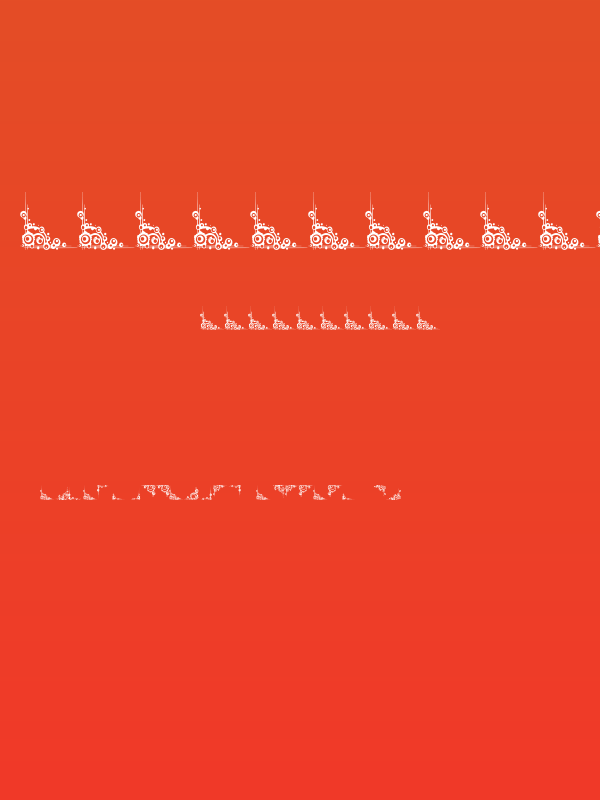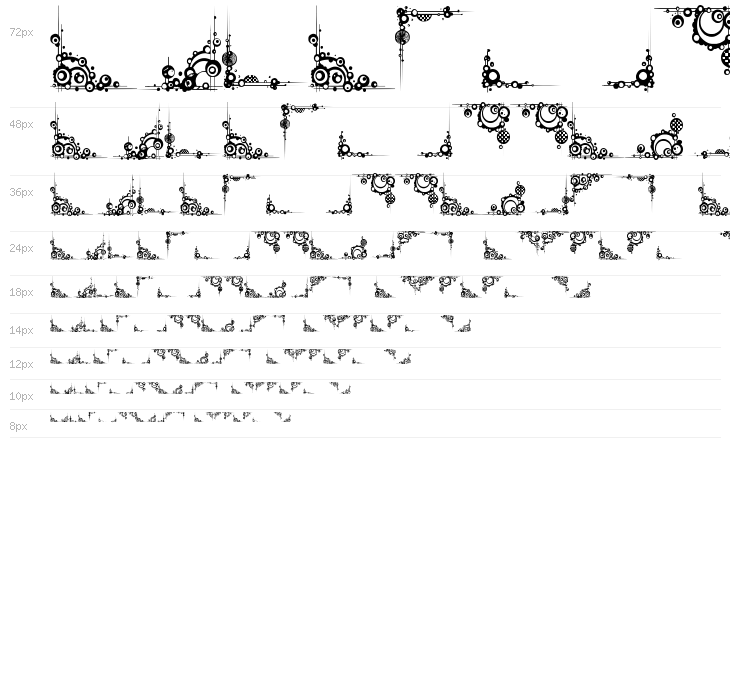
Vintage Decorative Corners 25 Font
Vintage Decorative Corners 25 Description
Highly ornate, intricate decorative corner elements featuring swirling, circular, and floral motifs with fine line detailing, reminiscent of vintage or Victorian embellishments.
| Overall Style | Vintage, Ornamental, Decorative |
| Use Case | Borders, Frames, Decorative accents |
| Proposed Projects | Invitations, certificates, book covers, posters, scrapbooking, decorative borders. |